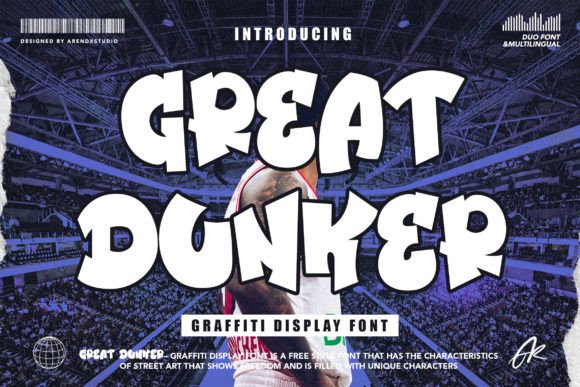
Behold the Great Dunker font, an urban masterpiece that embodies the unrestrained spirit of street art. A visual symphony of raw energy and heartfelt scribbles, this font is a tribute to the raw and untamed beauty of artistic expression. Great Dunker, a display font family, is the perfect canvas for your creative endeavors, ready to transform your words into captivating visual masterpieces.
Unleash the rebel within you as you explore the depths of Great Dunker's diverse character set. Each letter is a testament to the authenticity and individuality of street art, inviting you to break free from the mundane and embrace the unconventional. The font's natural flow and organic strokes capture the essence of spontaneity, adding an undeniable charm to your designs.
Great Dunker is not just a font; it's an experience. Immerse yourself in the vibrant energy of urban culture as you craft designs that resonate with raw emotion and authenticity. Whether you're designing posters that scream for attention, album covers that evoke a sense of nostalgia, or social media posts that demand a double-take, Great Dunker is your ultimate weapon of creative expression.
Feel the pulse of the city as your designs pulsate with the vibrant rhythm of Great Dunker. Its bold presence commands attention, inspiring a sense of intrigue and curiosity. Let your designs become a reflection of your unique perspective, a canvas where your creative vision takes center stage.